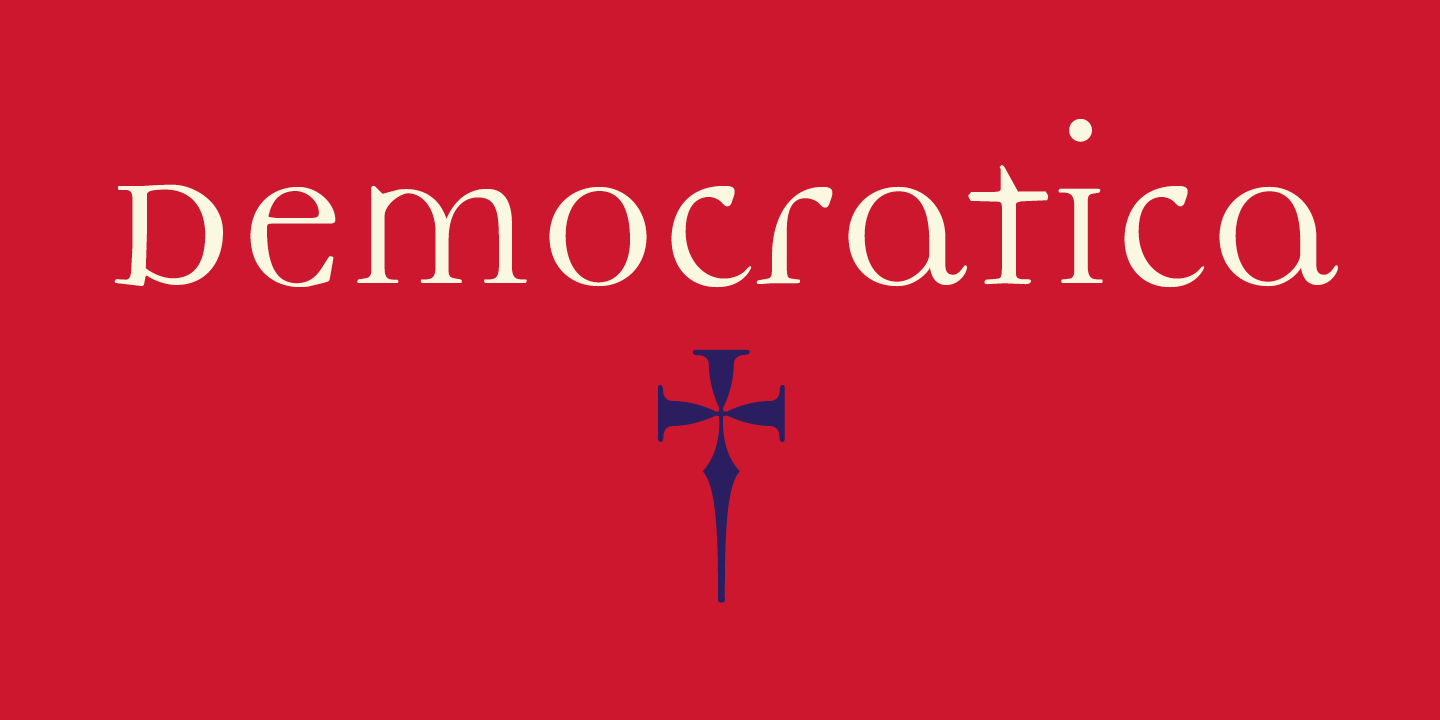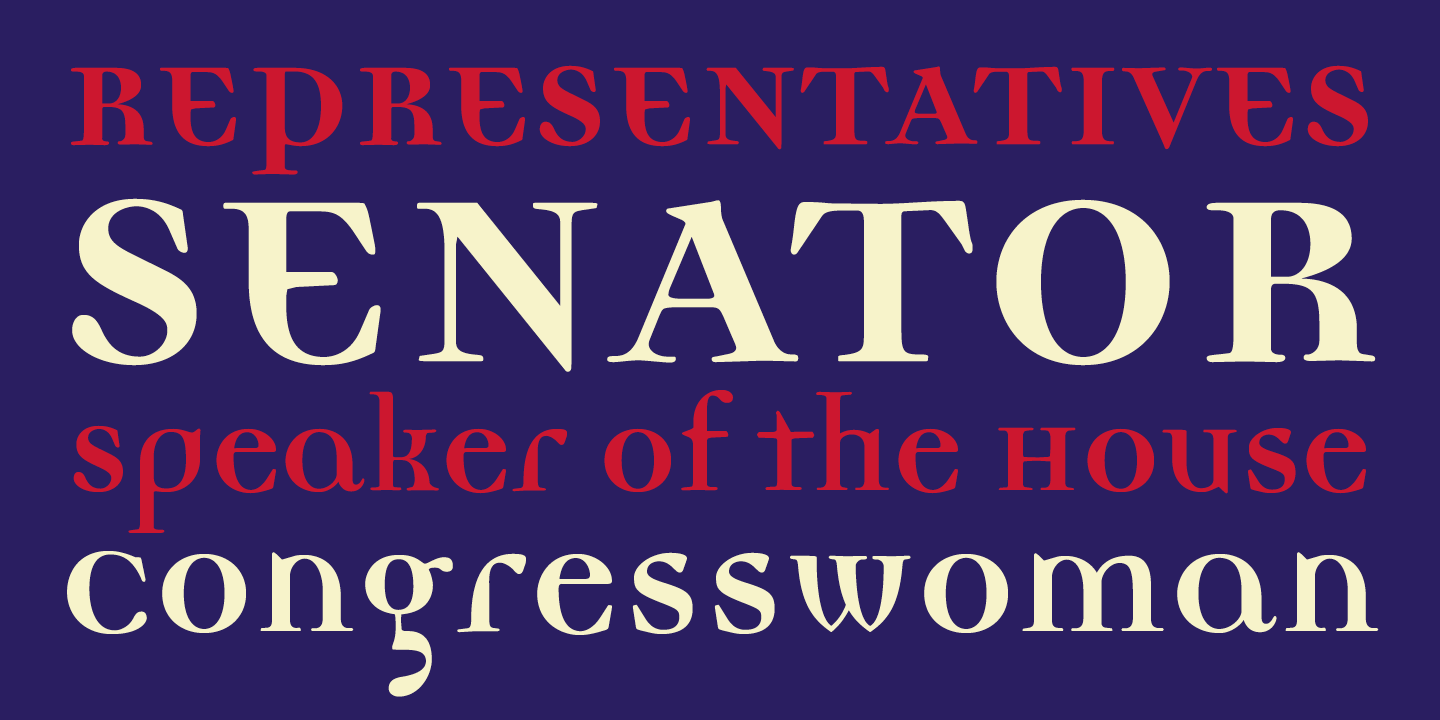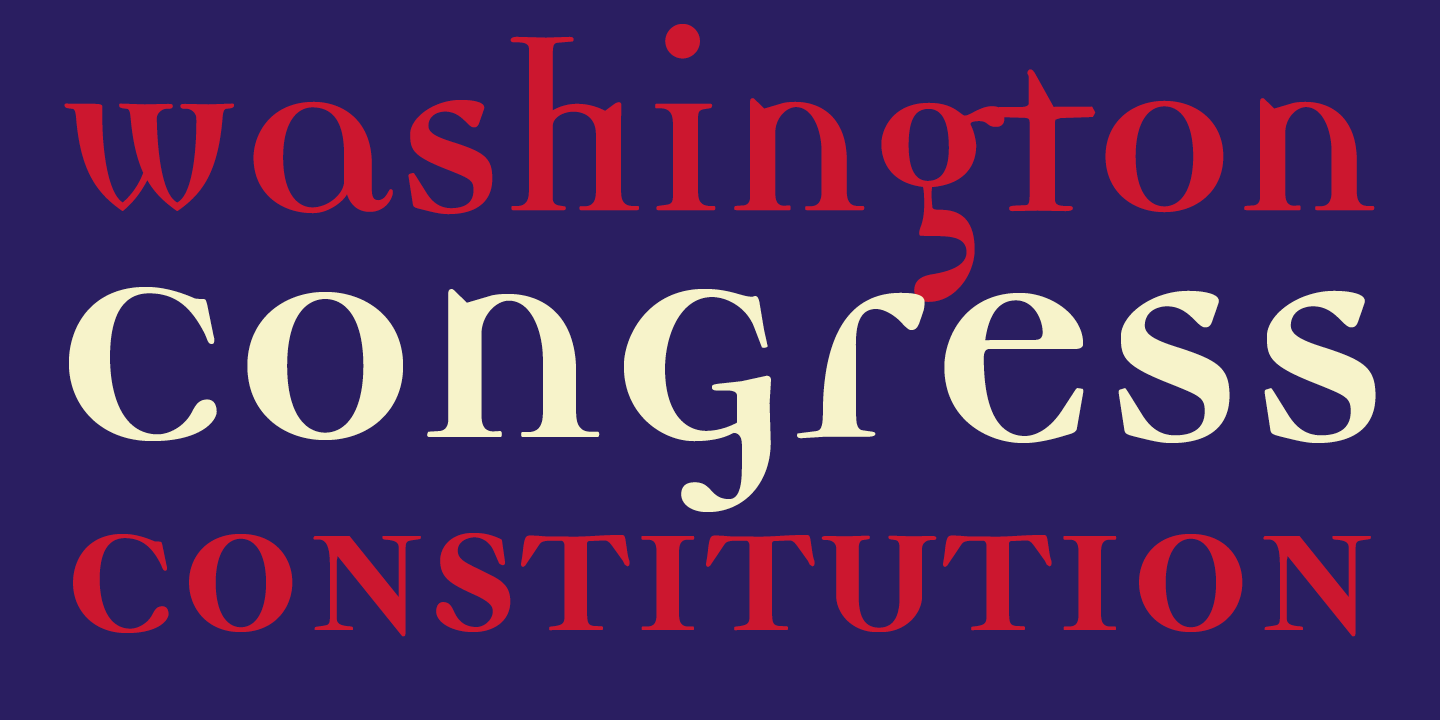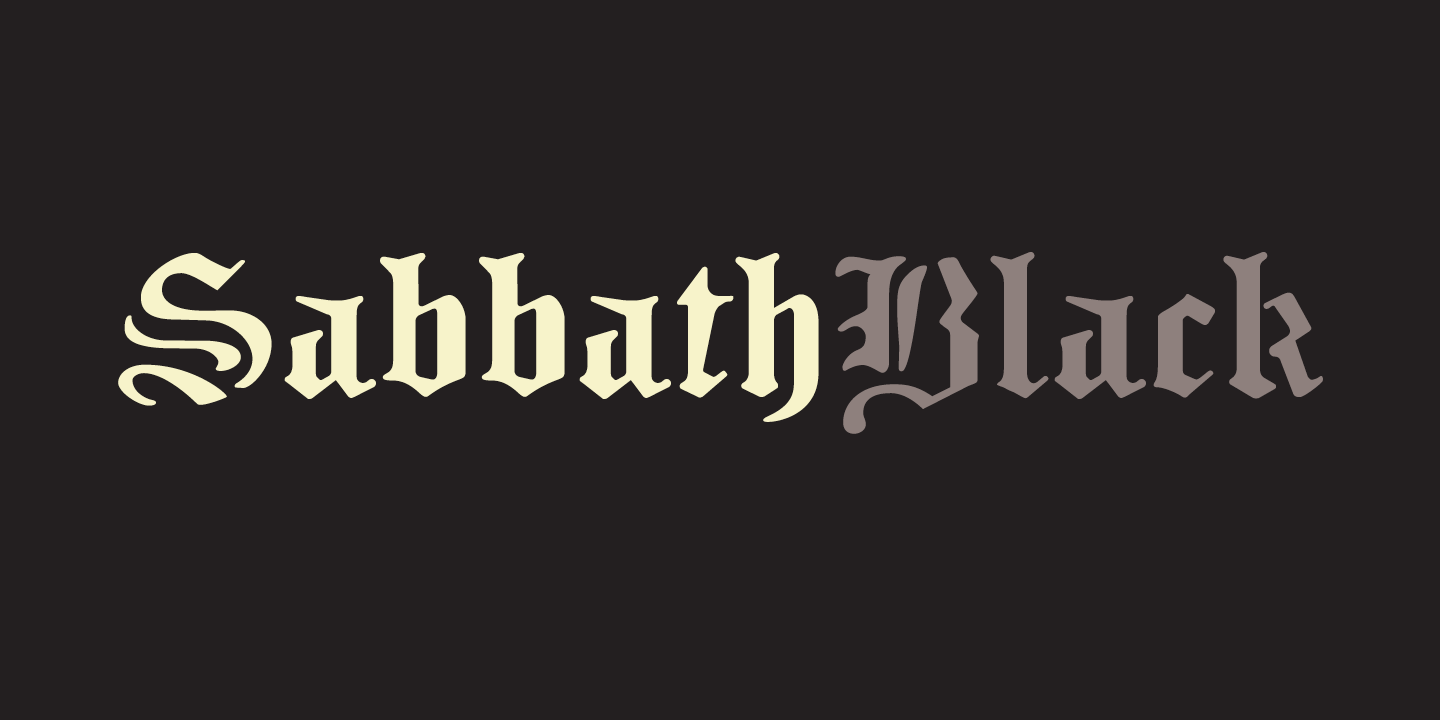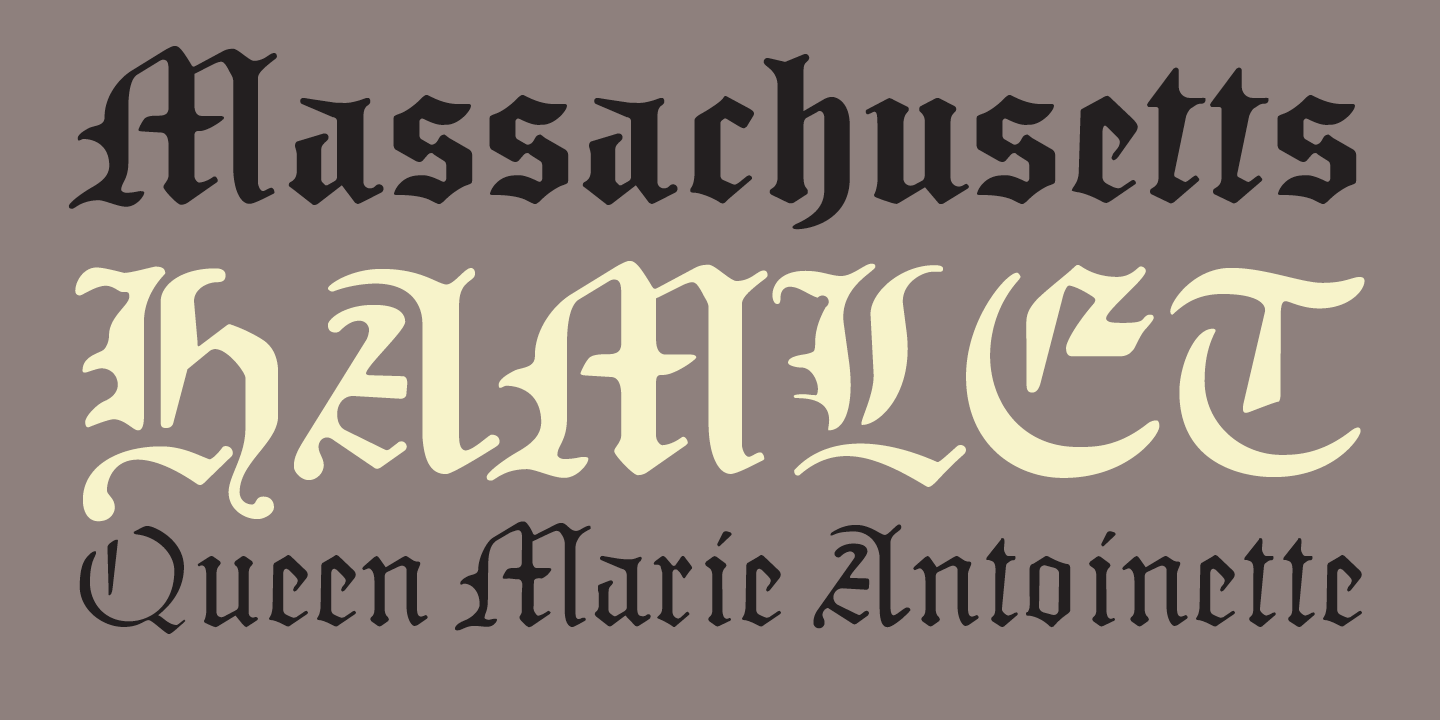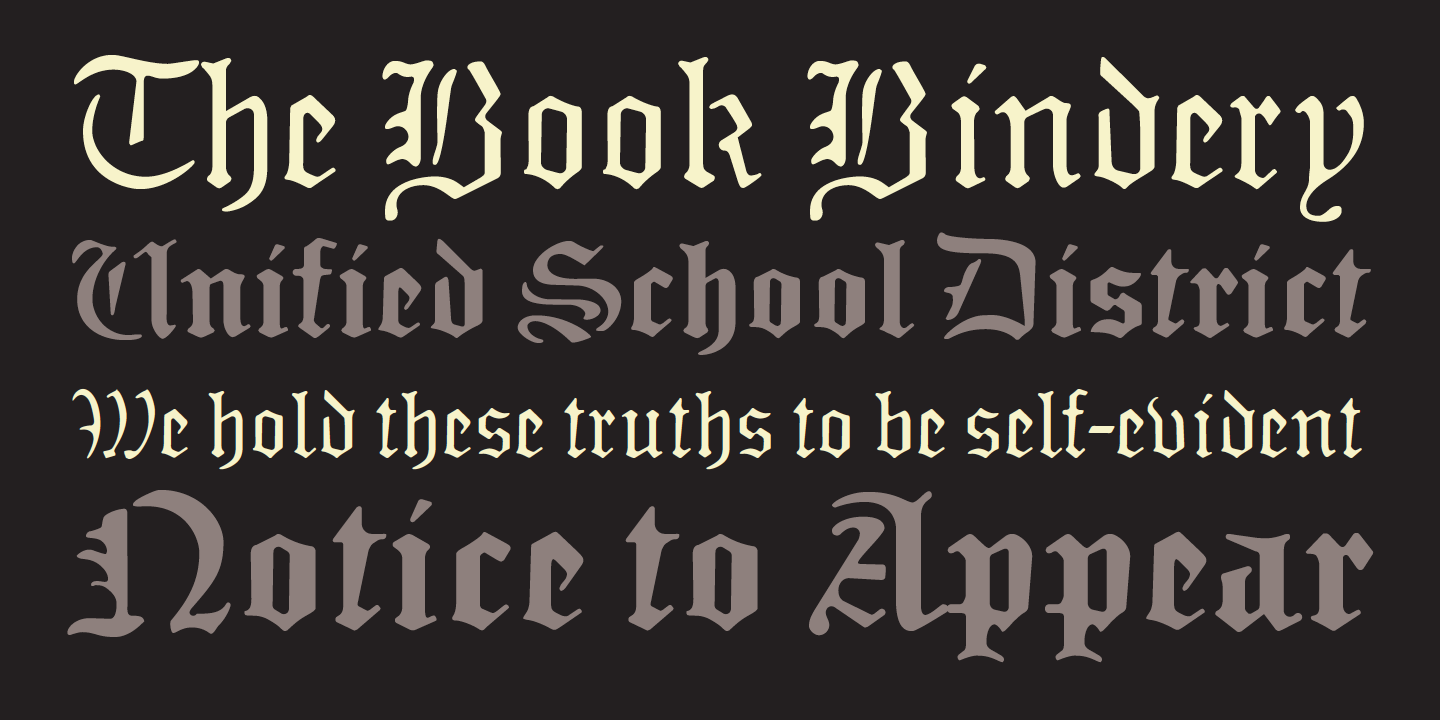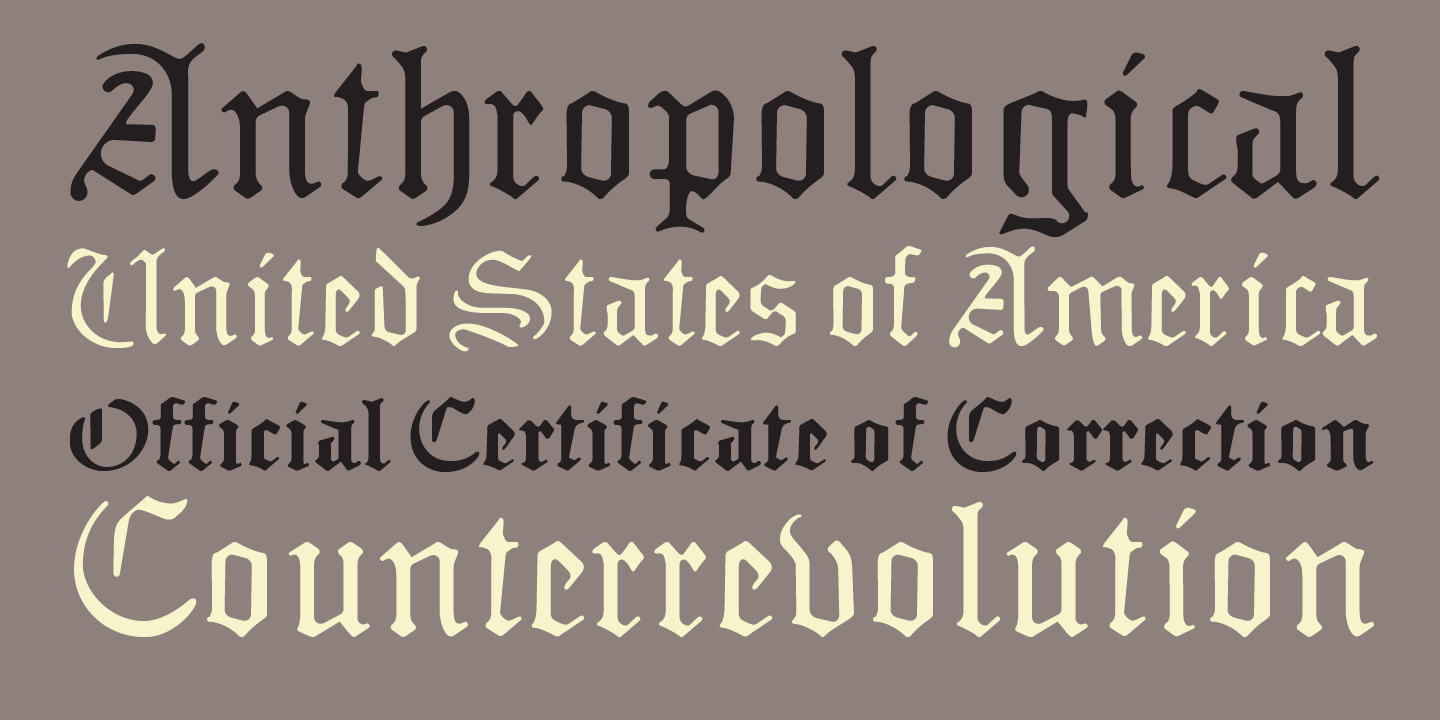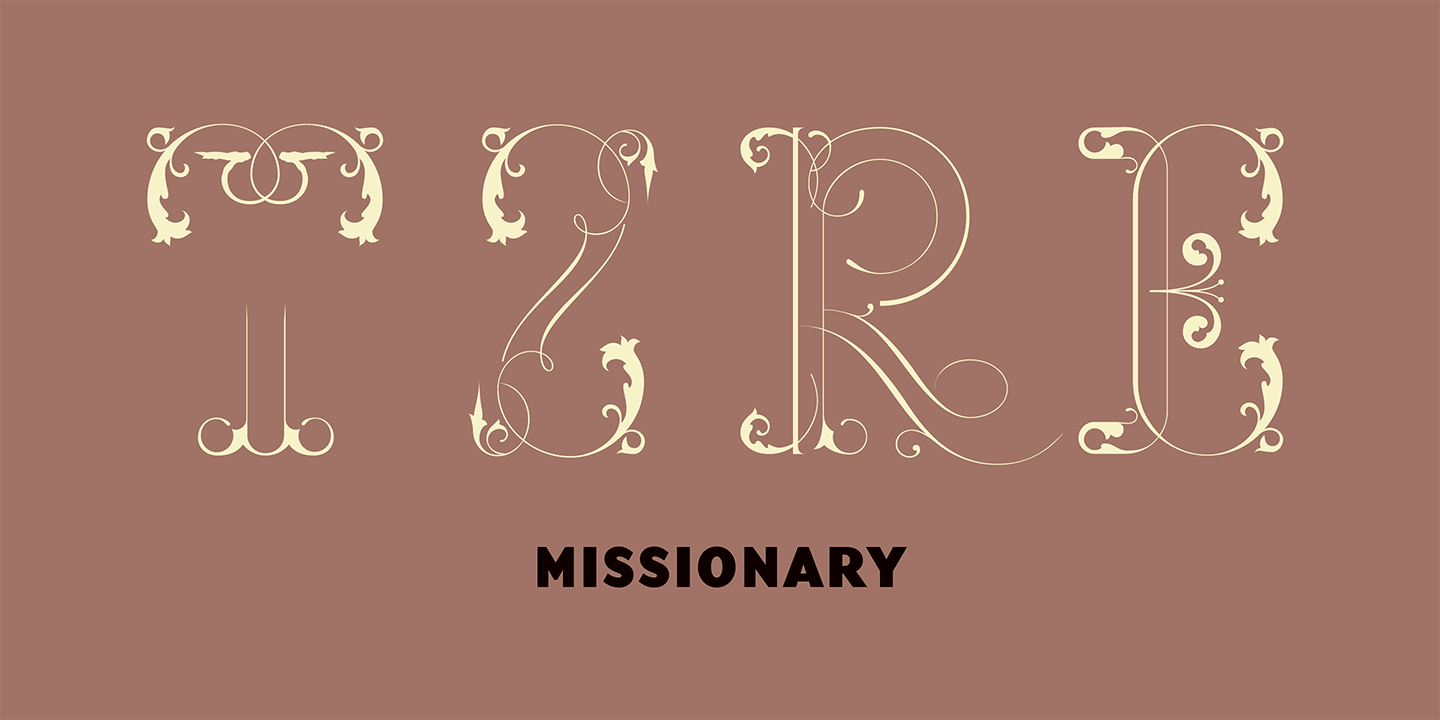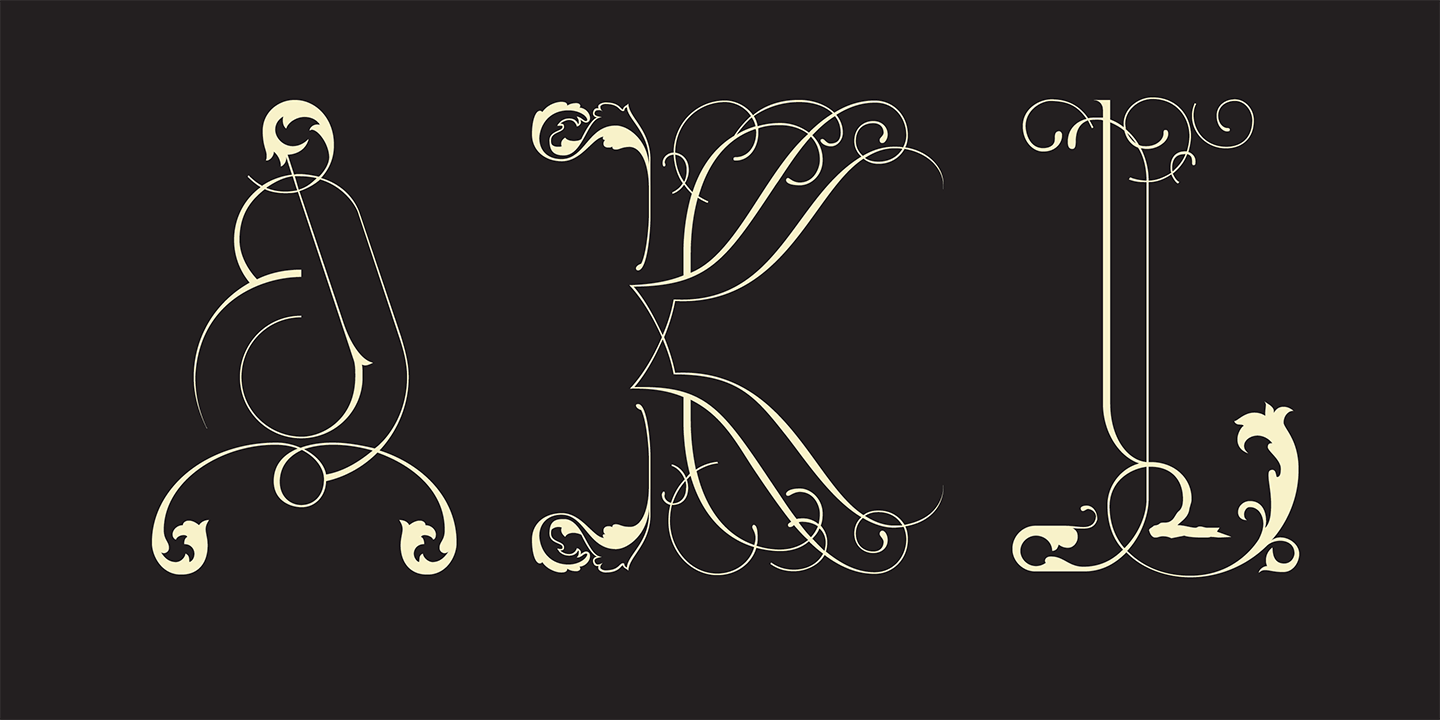
Miles Newlyn
Miles Newlyn graduated from St Martins College of Art, London, in 1991. He first released Missionary, Sabbath Black, and Democratica through Emigré, and then designed a set of six keynote typefaces for David Carson.
Newlyn quickly appropriated many of his ideas to the corporate sector, branding in particular. After some some years working with London agencies, and Wolff Olins in particular, he developed a style termed ‘white occult’, a blend of meta-organic forms and hi-tech typography. Newlyn continues to explore and expand this vision, and utilizes the results for clients worldwide.